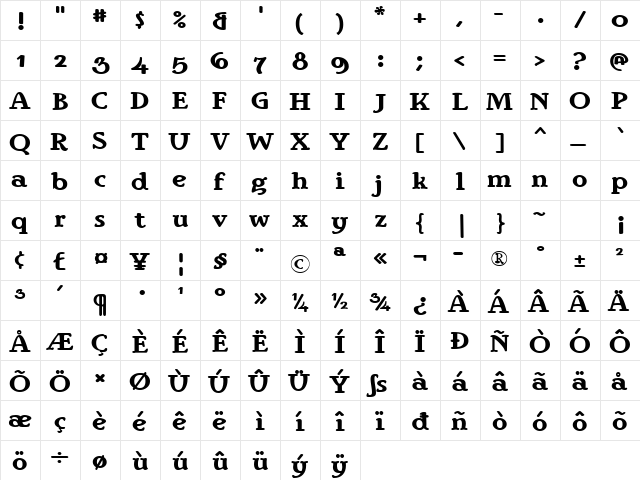
IngrianaExtraBold Regular
Design Context for IngrianaExtraBold Typeface
IngrianaExtraBold offers clean, dependable letterforms without strong stylistic allegiance, making it a practical choice for designers who need flexibility. The heavy weight commands attention and anchors typographic hierarchies.